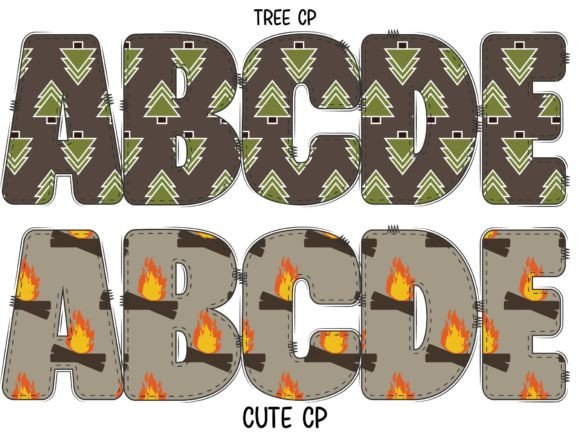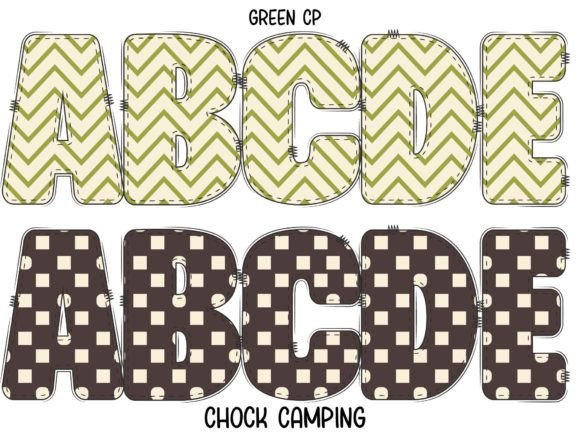
Introducing Chock Camping Font: Add a Cute and Colorful Touch to Your Creations
Are you looking for a font that can add a playful and vibrant touch to your designs? Look no further than the Chock Camping Font! This adorable and color font is perfect for designers and crafters who want to take their creations to the next level. In this article, we’ll explore the features and benefits of the Chock Camping Font, as well as provide tips on how to use it effectively in your designs.
What is Chock Camping Font?
Key Features of Chock Camping Font
- Cute and Colorful: The Chock Camping Font is a vibrant and playful font that is perfect for designs that require a fun and youthful touch.
- Opentype-SVG: This font is a type of Opentype-SVG, which means it’s a color font that can be used in various design software.
- Use it for Kids’ Projects: The Chock Camping Font is perfect for kids’ projects, such as birthday cards, party invitations, and educational materials.
- Experiment with Colors: The Chock Camping Font comes in a range of colors, so don’t be afraid to experiment and try out different color combinations.
- Pair it with Other Fonts: The Chock Camping Font can be paired with other fonts to create a unique and interesting design. Try pairing it with a bold font for a fun and playful look.
The Chock Camping Font is a fun and colorful font that is perfect for designers and crafters who want to add a playful touch to their creations. With its Opentype-SVG format and compatibility with popular design software, it’s easy to use and versatile. Whether you’re working on a kids’ project or a personal design, the Chock Camping Font is sure to bring a smile to your face. So why not give it a try and see what amazing creations you can come up with?